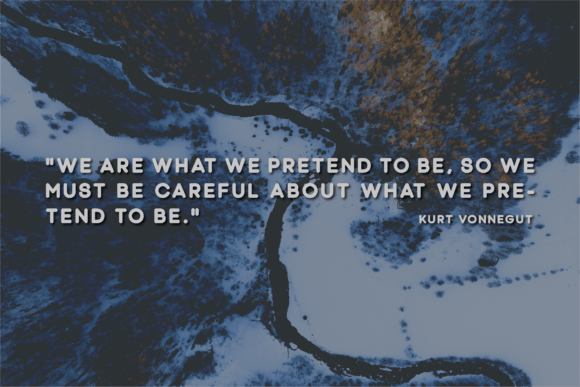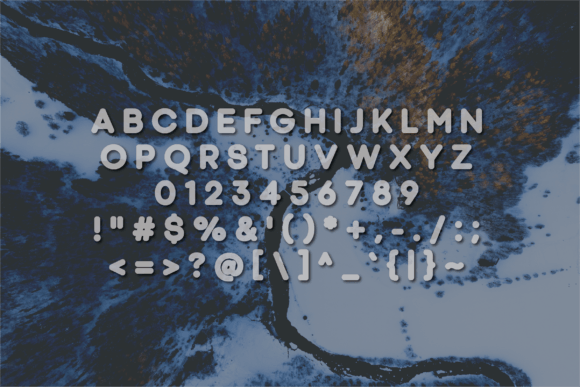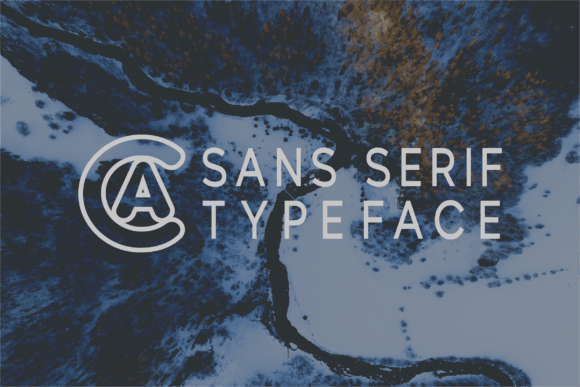
Introducing Boldwinn Font: Elevate Your Designs with Modern Elegance
In the world of typography, a font can make or break a design. For designers and crafters looking for a versatile, modern, and classy sans serif font, Boldwinn is the perfect choice. This stunning font is ideal for a wide range of applications, from logos and weddings to invitations, quotes, advertisements, print, magazines, and more. With Boldwinn, you can add a touch of sophistication and elegance to your most creative ideas and watch them come alive!
The Characteristics of Boldwinn Font
Boldwinn Font is a sans serif font, which means it doesn’t have the small lines or flourishes at the ends of the letters. This clean and minimalist design makes it perfect for modern and contemporary designs. The font is highly legible, even at small sizes, making it suitable for body text and captions. The bold and sturdy lines of Boldwinn Font give it a strong presence, making it perfect for headlines and titles.
What Makes Boldwinn Font So Versatile?
Boldwinn Font is an incredibly versatile font that can be used in a wide range of design applications. Here are just a few examples:
- Logos: The bold and modern design of Boldwinn Font makes it perfect for logos that need to make a statement.
- Weddings and Invitations: The elegant and sophisticated design of Boldwinn Font makes it ideal for wedding invitations, save-the-date cards, and other formal events.
- Quotes and Advertisements: The strong and sturdy lines of Boldwinn Font make it perfect for quotes and advertisements that need to grab attention.
- Print and Magazines: The clean and legible design of Boldwinn Font makes it suitable for body text and captions in print and digital magazines.
Why Choose Boldwinn Font?
There are many fonts available, but Boldwinn Font stands out from the rest. Here are just a few reasons why:
- Unique Design: Boldwinn Font has a unique and distinctive design that sets it apart from other sans serif fonts.
- Highly Legible: The font is highly legible, even at small sizes, making it suitable for body text and captions.
- Versatile: Boldwinn Font can be used in a wide range of design applications, from logos and weddings to print and magazines.
Tips for Using Boldwinn Font
Here are a few tips for using Boldwinn Font in your designs:
- Pair it with Other Fonts: Boldwinn Font pairs well with other sans serif fonts, as well as serif fonts. Experiment with different font combinations to find the perfect look for your design.
- Use it for Headlines: The bold and sturdy lines of Boldwinn Font make it perfect for headlines and titles.
- Experiment with Colors: Boldwinn Font looks great in a variety of colors. Experiment with different colors and gradients to find the perfect look for your design.
In conclusion, Boldwinn Font is a versatile, modern, and classy sans serif font that’s perfect for designers and crafters looking to elevate their designs. With its unique design, high legibility, and versatility, Boldwinn Font is ideal for a wide range of applications. Whether you’re creating a logo, wedding invitation, or magazine, Boldwinn Font is sure to make your design stand out. So why wait? Add Boldwinn Font to your design toolkit today and watch your creative ideas come alive!